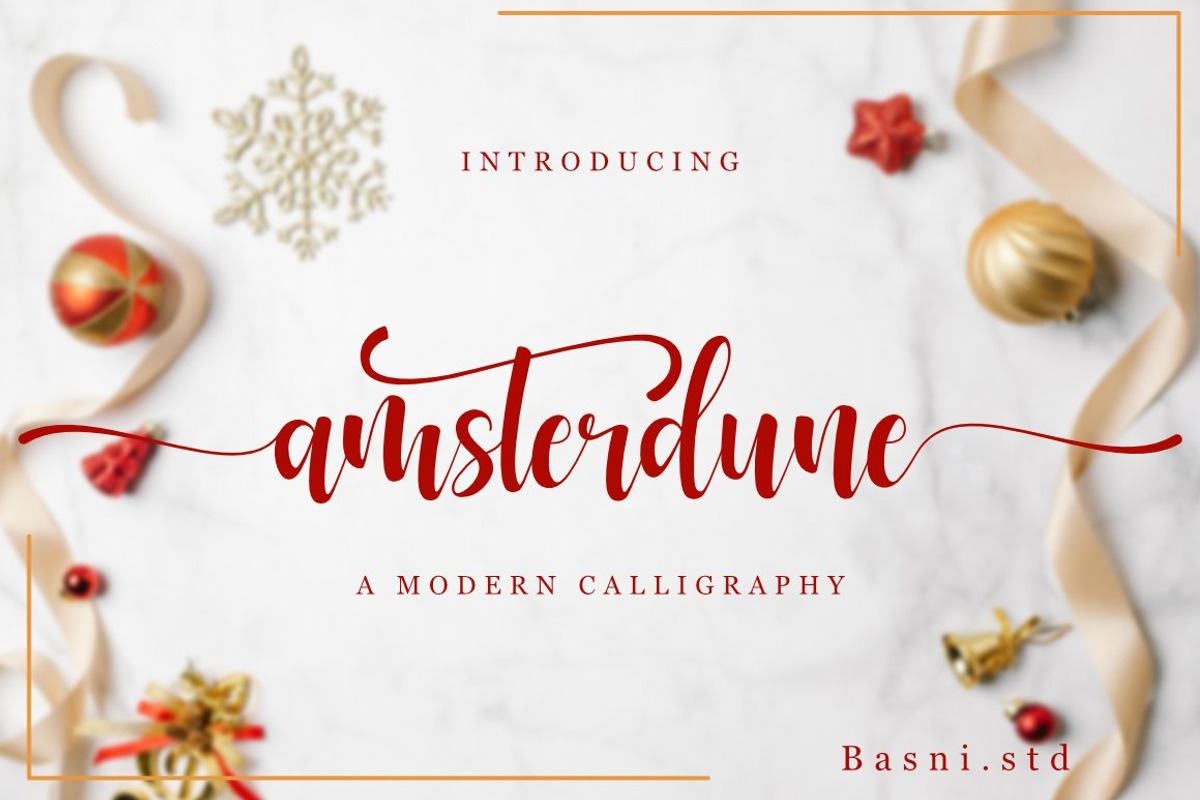
Amsterdune - Modern Calligraphy Free Download
Amsterdune - Modern Calligraphy Font Free Download
Amsterdune - Modern Calligraphy Font Free Download is an elegant and flowing script typeface that brings sophistication and romance to your designs. With its graceful letterforms, stylish swashes, and natural handwriting feel, Amsterdune is perfect for wedding invitations, feminine branding, boutique logos, social media graphics, and heartfelt quotes.
Designed with attention to detail, this modern calligraphy font offers a harmonious blend of beauty and readability. Its dynamic strokes and ligatures give your text a luxurious, handcrafted touch—ideal for both print and digital use.